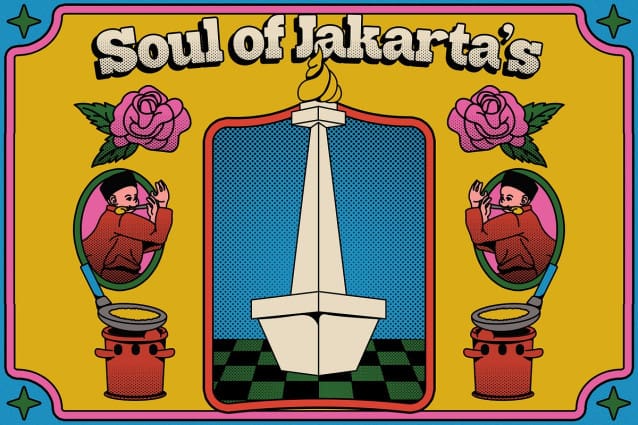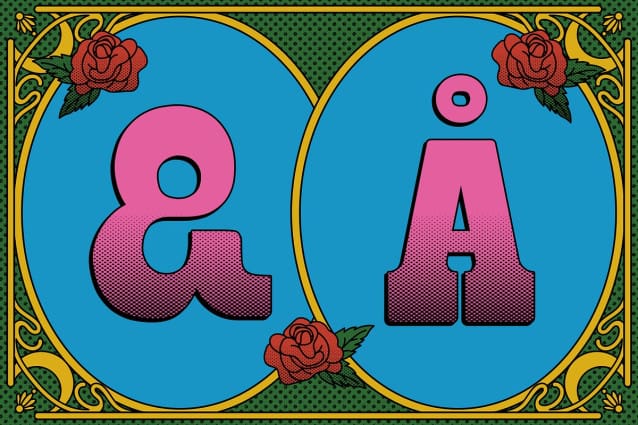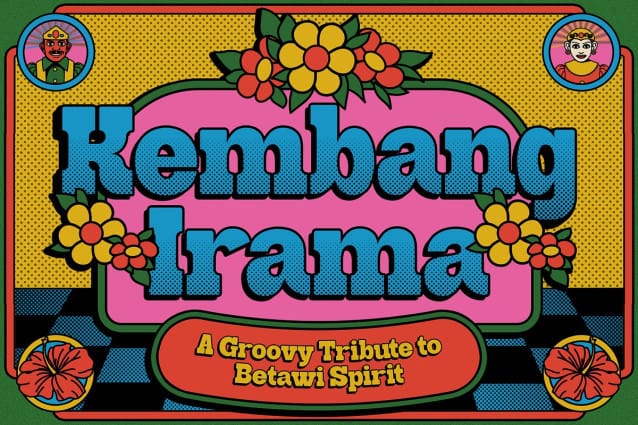
Kembang Irama Font
Kembang Irama Font is a playful retro typeface inspired by the vibrant energy of 70s Indonesia and the joyful soul of Betawi culture. With bold shapes, rounded serifs, and nostalgic flair, this font brings a festive and funky vibe to every design. Perfect for projects that aim to stand out with a local twist and groovy charm.